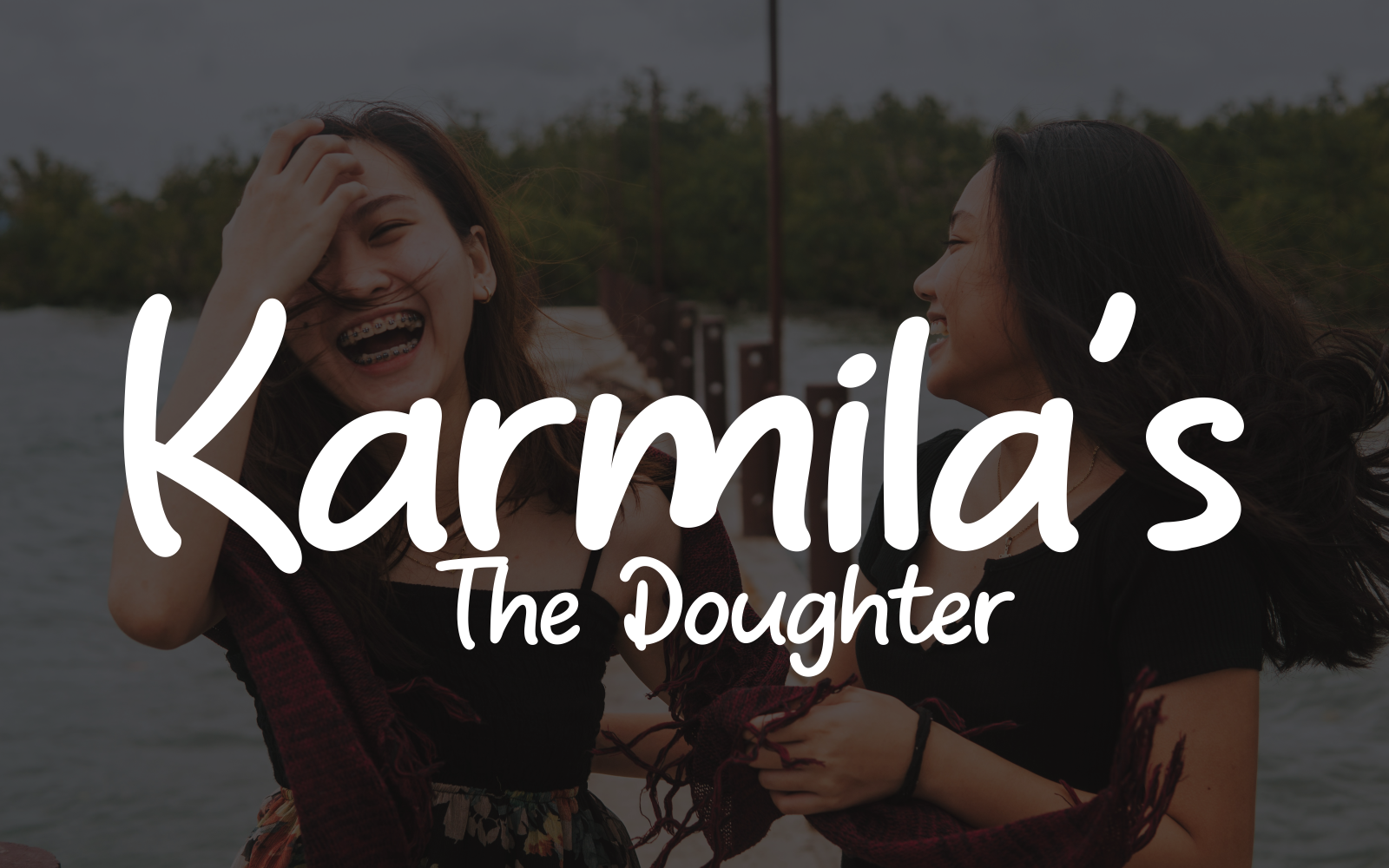
Karmila the Doughter - Graceful Script for Warm Words Font
Karmila The Daughter is a charming and elegant script font designed to bring a personal and heartfelt touch to your writing. Ideal for quotes, heartfelt notes, family messages, greeting cards, and script-style storytelling, this font captures warmth and sincerity in every stroke. Its flowing lines and soft curves make it perfect for any project that calls for emotional depth, creativity, and human connection. Let your words feel closer with Karmila The Daughter.